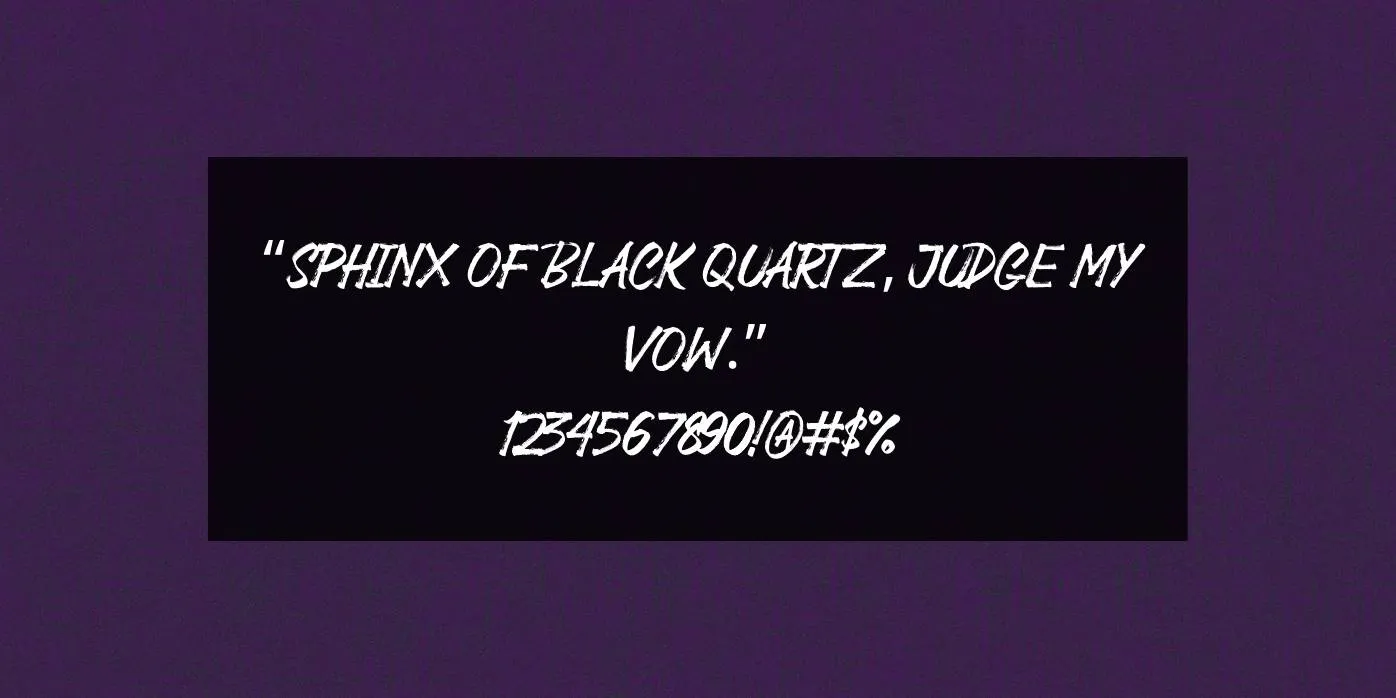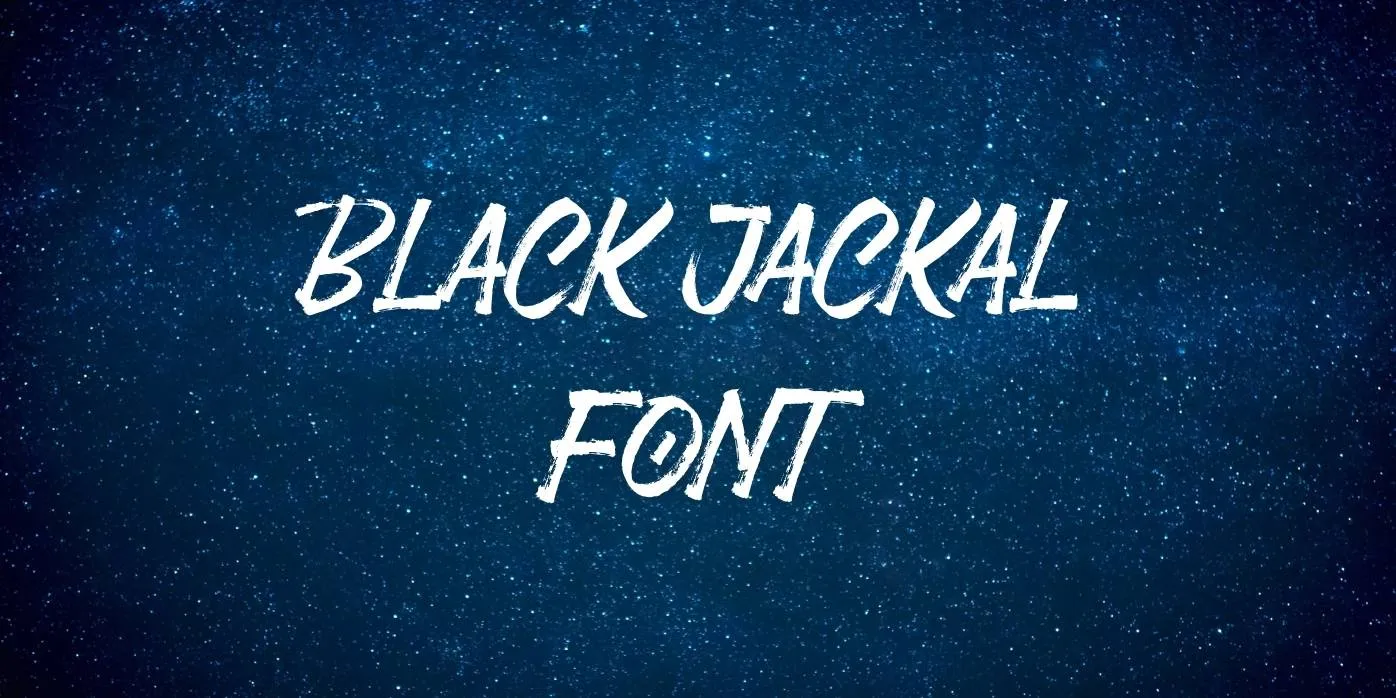
Black Jackal Font
Black Jackal Font is very famous and belongs to the brush font family. This typeface was designed by Hasta Type Foundry. This awesome typeface is perfect for all design projects due to its keen and clean features. This typeface is perfect and suitable for Adobe Photoshop, and Canva.
This tremendous typeface is also best for various other programs. This classic typeface is becoming popular day after day. This font family comes in more than eight unique weights and different styles. You can use edo sz font which has the same style and characters as this one.